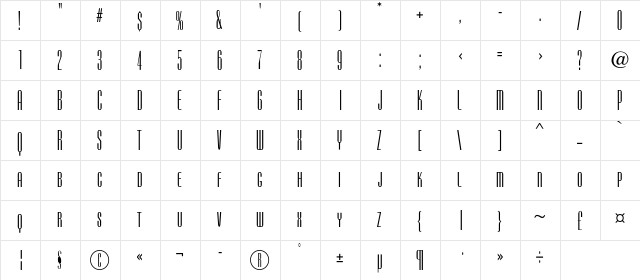
Camerton G Regular
Design Context for Camerton G Typeface
Camerton G offers clean, dependable letterforms without strong stylistic allegiance, making it a practical choice for designers who need flexibility.